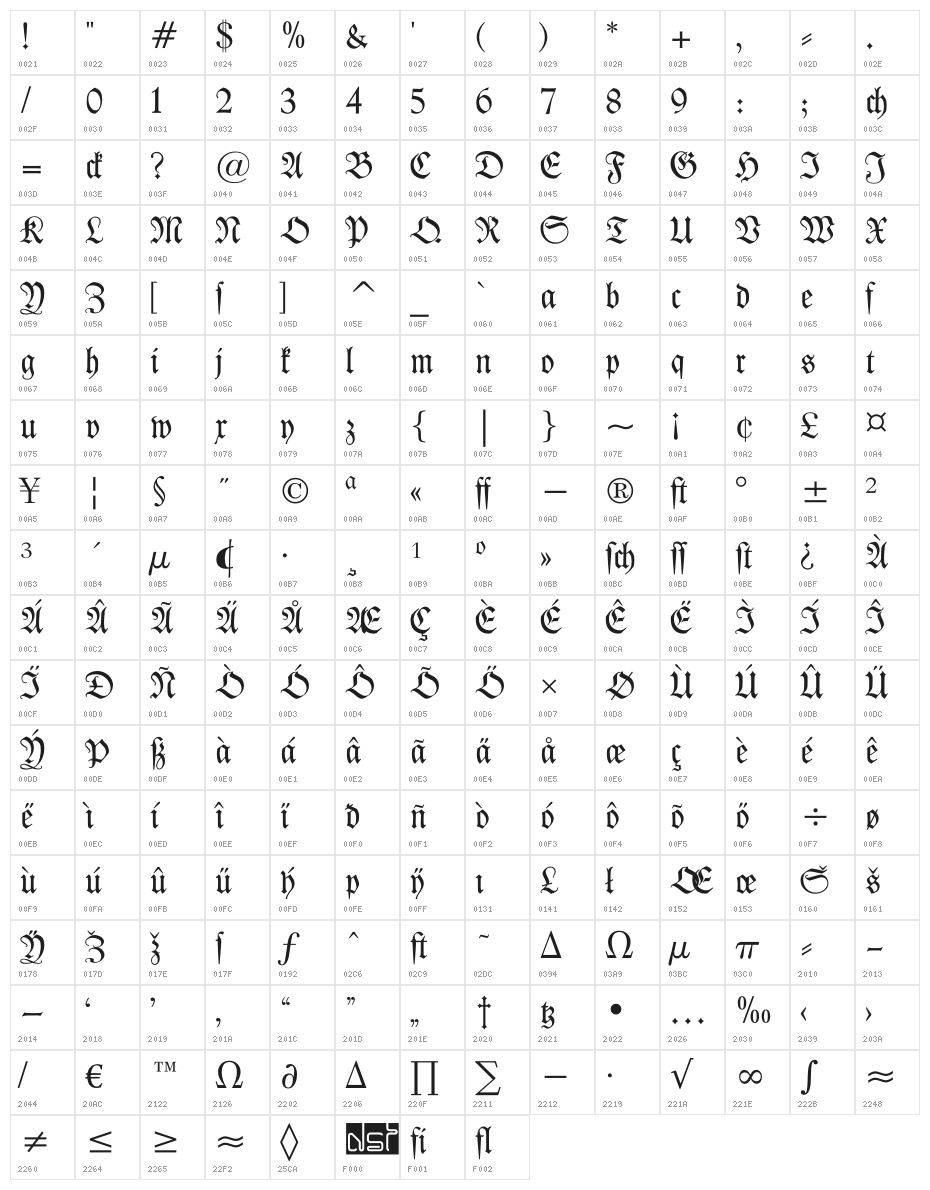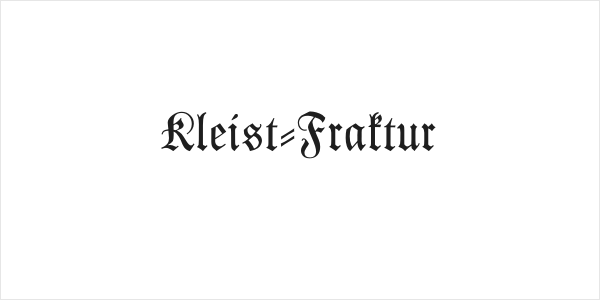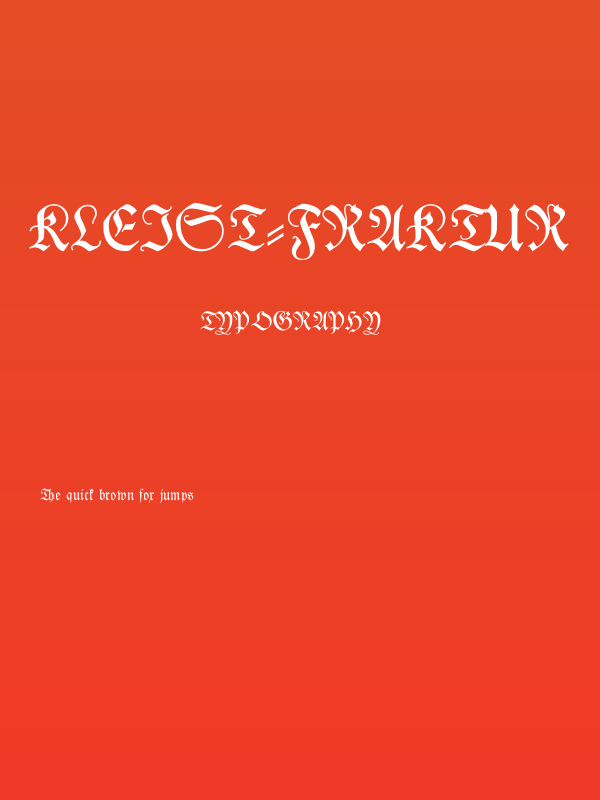
Kleist-Fraktur Font
Kleist-Fraktur Description
This font is a classic example of the Blackletter style, characterized by its ornate and intricate letterforms. The uppercase letters feature dramatic flourishes and sharp angles, while the lowercase letters maintain a consistent, bold appearance. The numbers are similarly styled, with a strong presence and distinctive curves. Special characters are designed to complement the overall aesthetic, adding to the font's historical and traditional feel. The font's high contrast between thick and thin strokes enhances its readability while maintaining its decorative appeal.
| Proposed Projects | Ideal for historical documents, certificates, book covers, and branding that requires a traditional or medieval touch. |